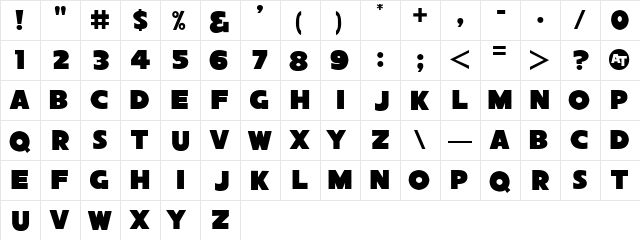
Sans Poster Bold JL Regular Font Preview
Sans Poster Bold JL Regular
Sans Poster Bold JL Regular Font Details
| Foundry | Jeff's Fonts & Dingbats |
| Designer | Jeffrey N. Levine |
Design Context for Sans Poster Bold JL Typeface
Sans Poster Bold JL is a composed and adaptable typeface that performs quietly and consistently across a wide range of design contexts. Its bold stroke weight gives it real presence on the page.